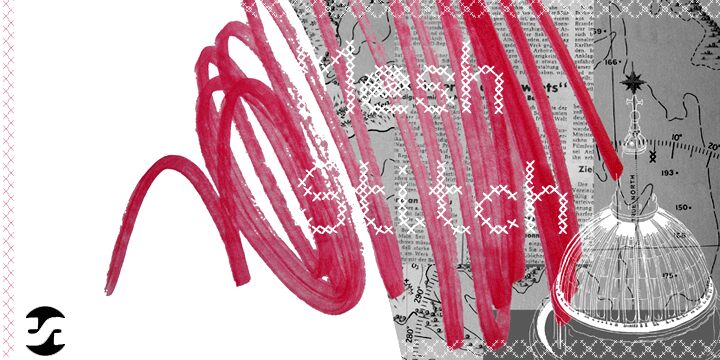
Mesh Stitch by Fran Board of Siren Fonts is a free cross-stitch display font built from rows of small, hand-drawn X marks. The loose alignment and open gaps give the letters the uneven texture of thread worked across a simple counted grid.
A craft workshop poster is its clearest setting, with sewing-pattern packaging, handmade merchandise, and children's activity books offering related uses. In event branding, the repeated crosses can become part of a stitched border or badge rather than functioning only as lettering.